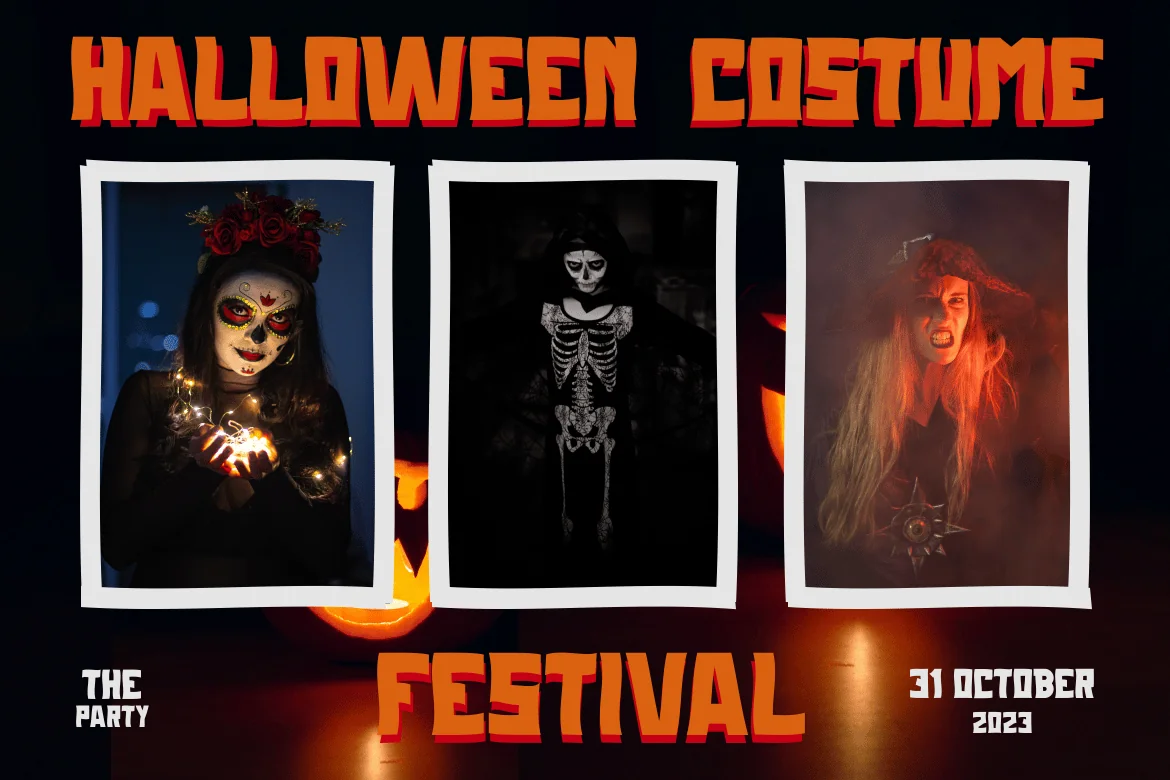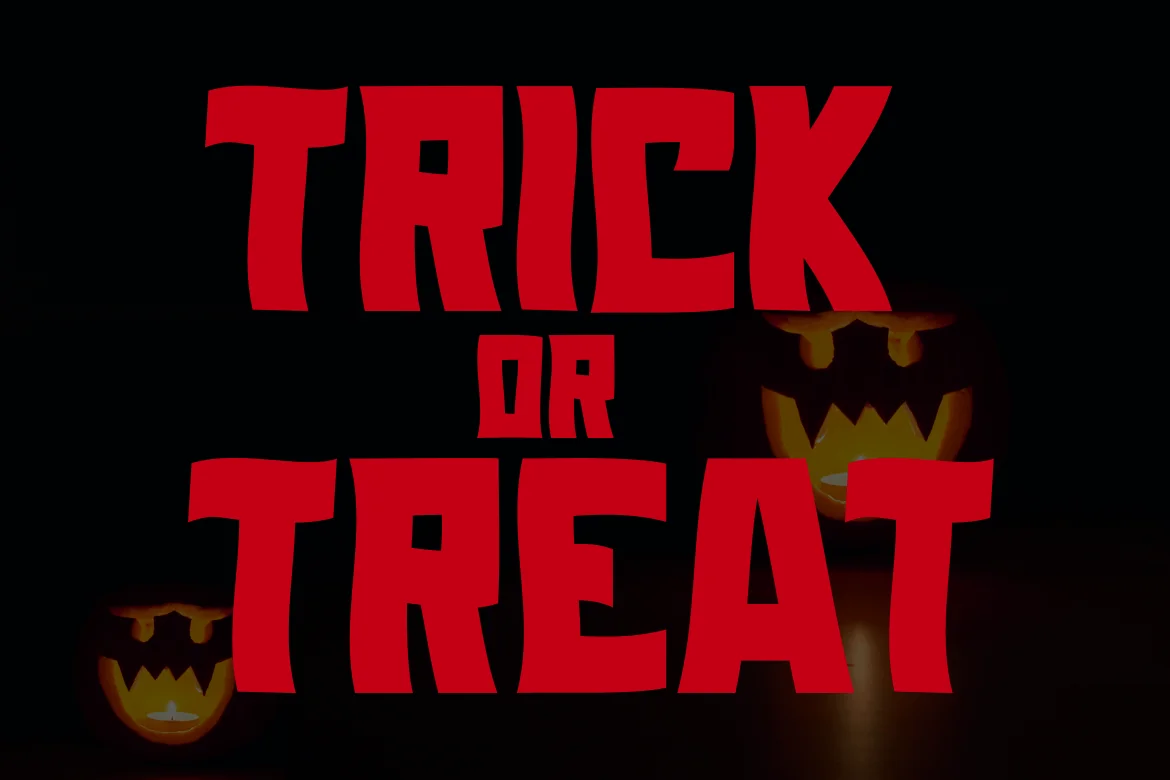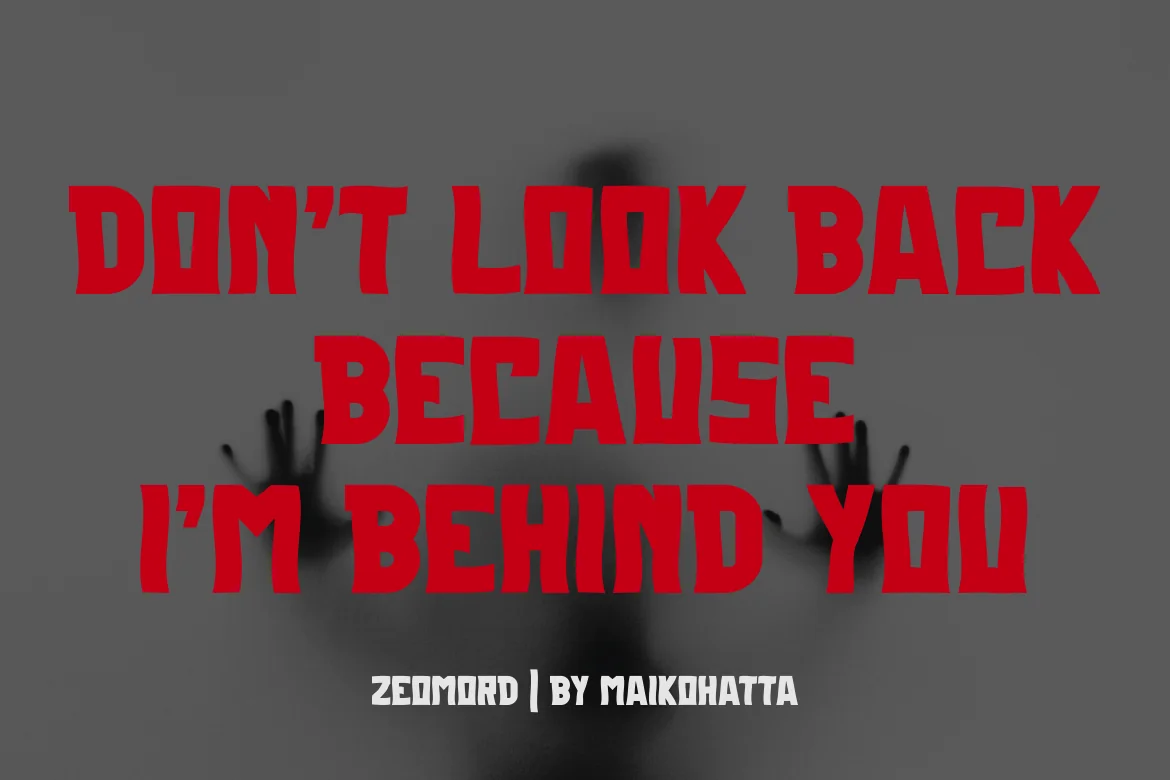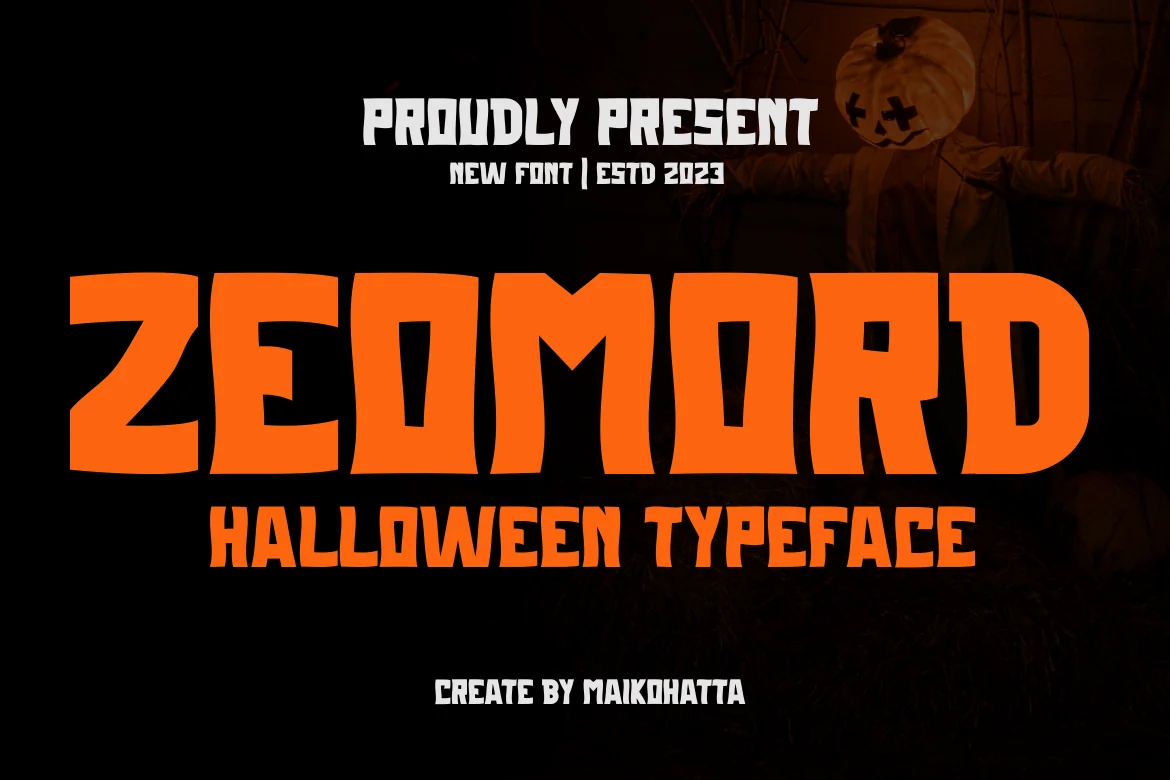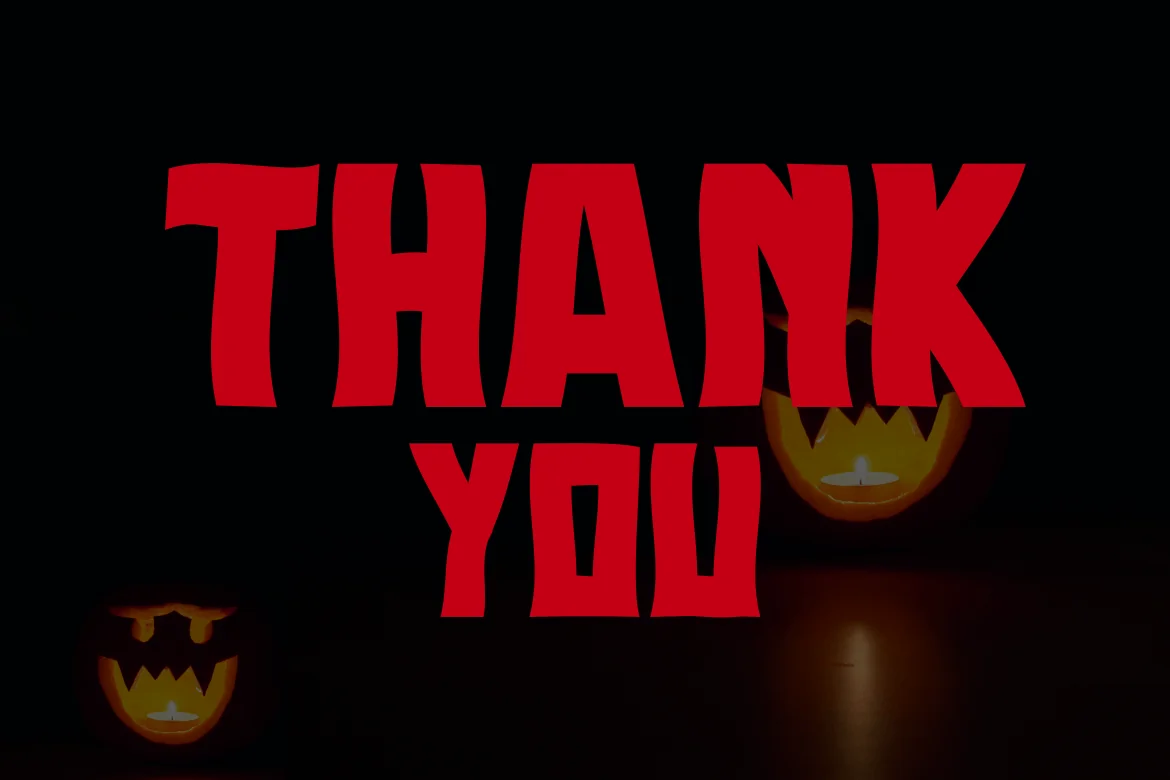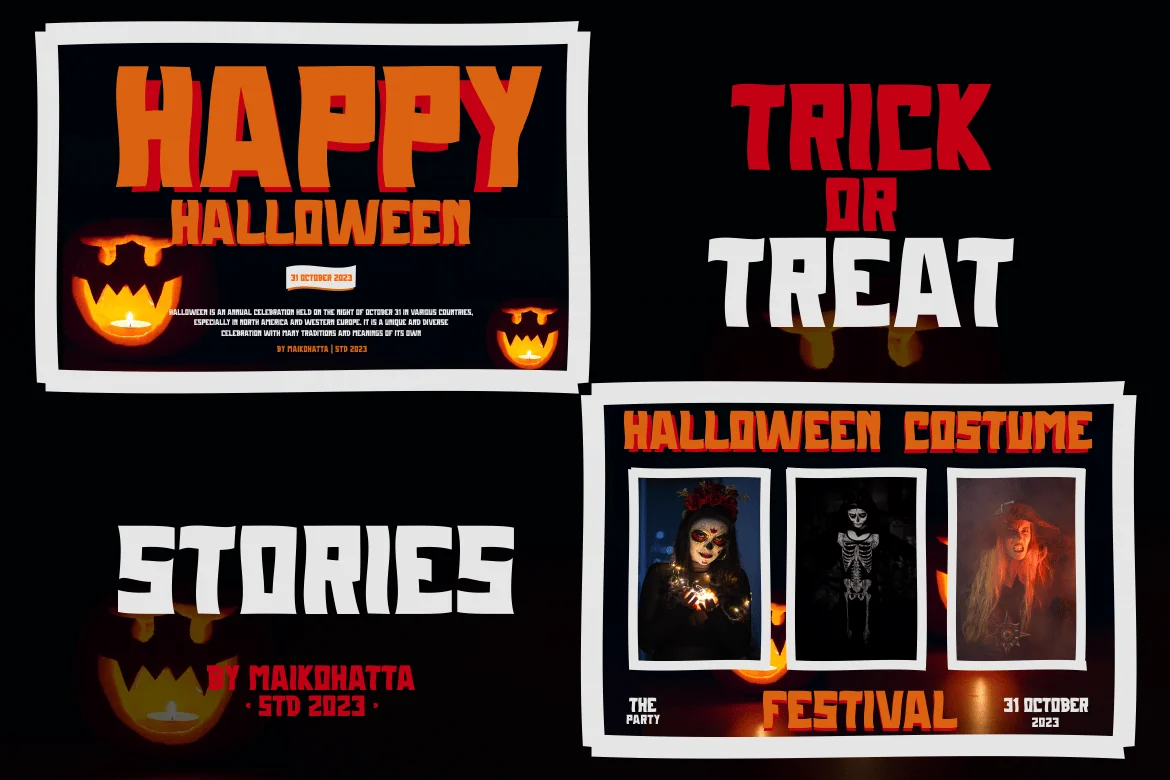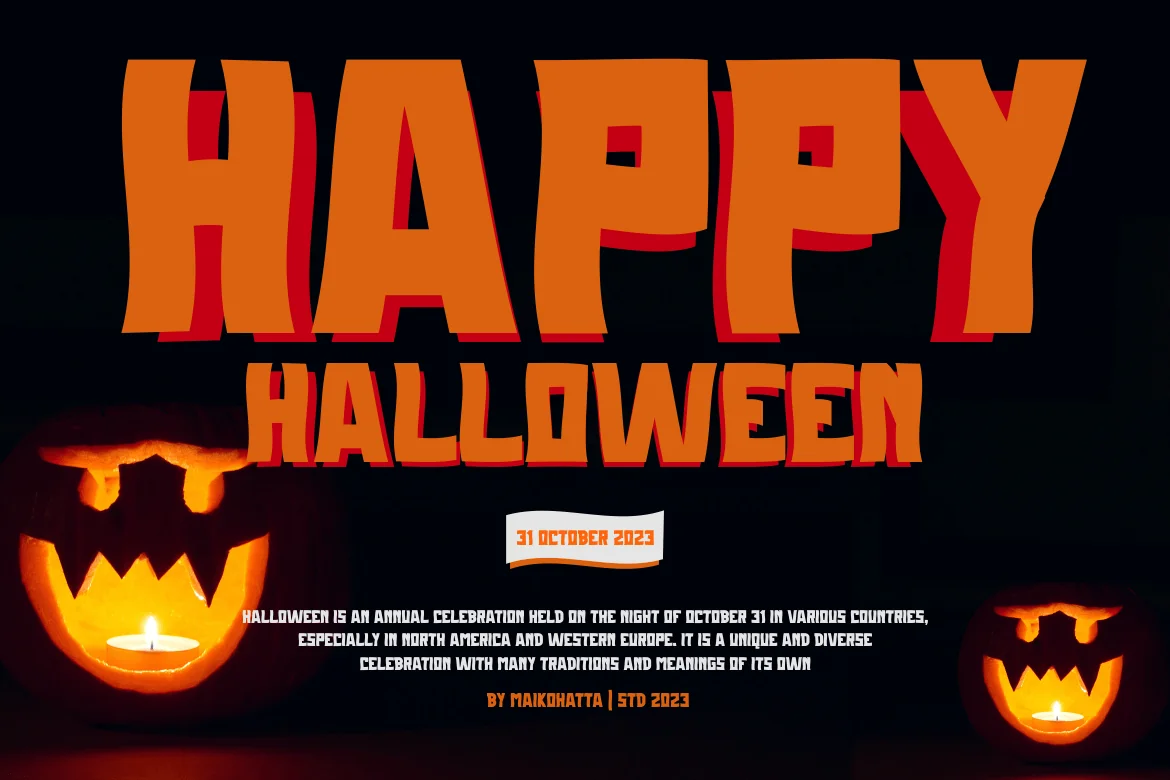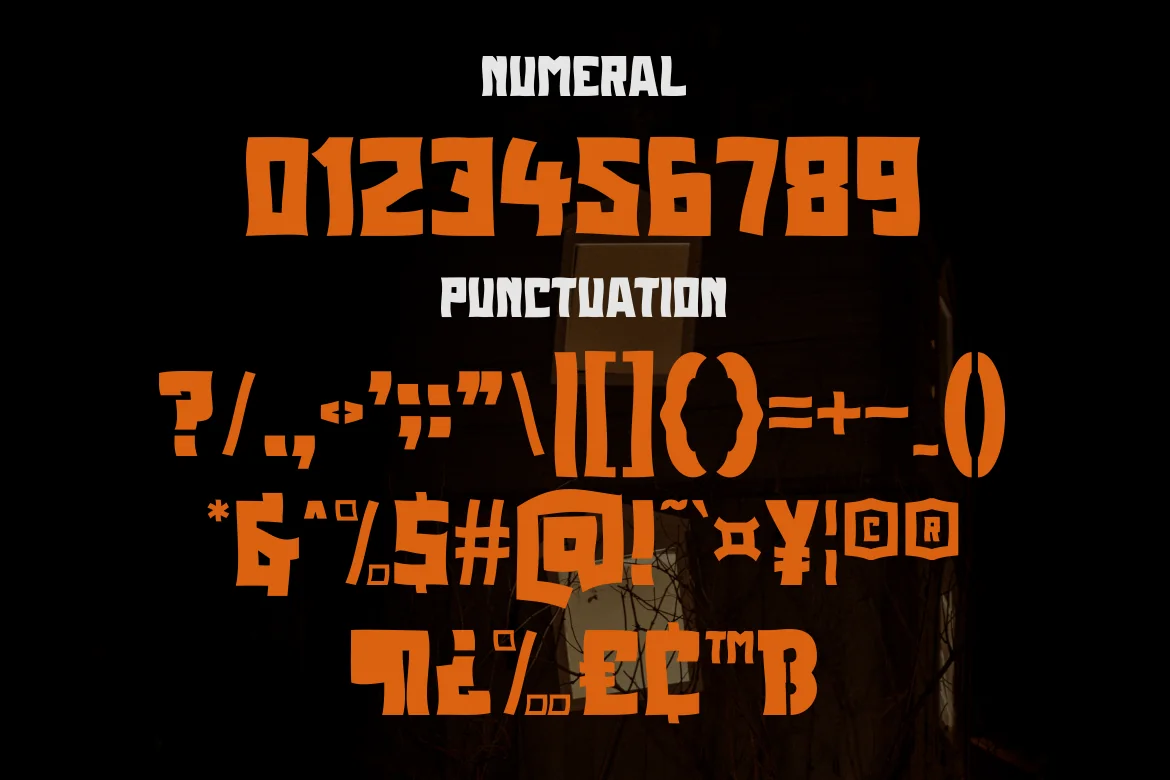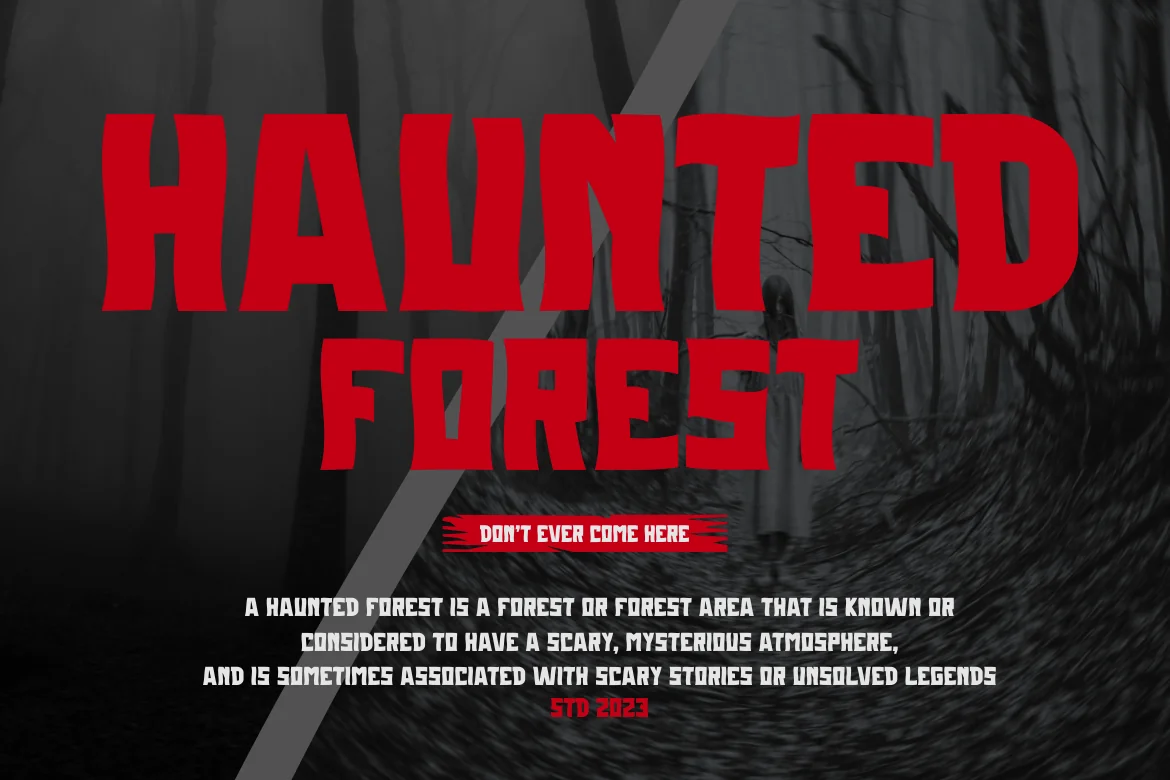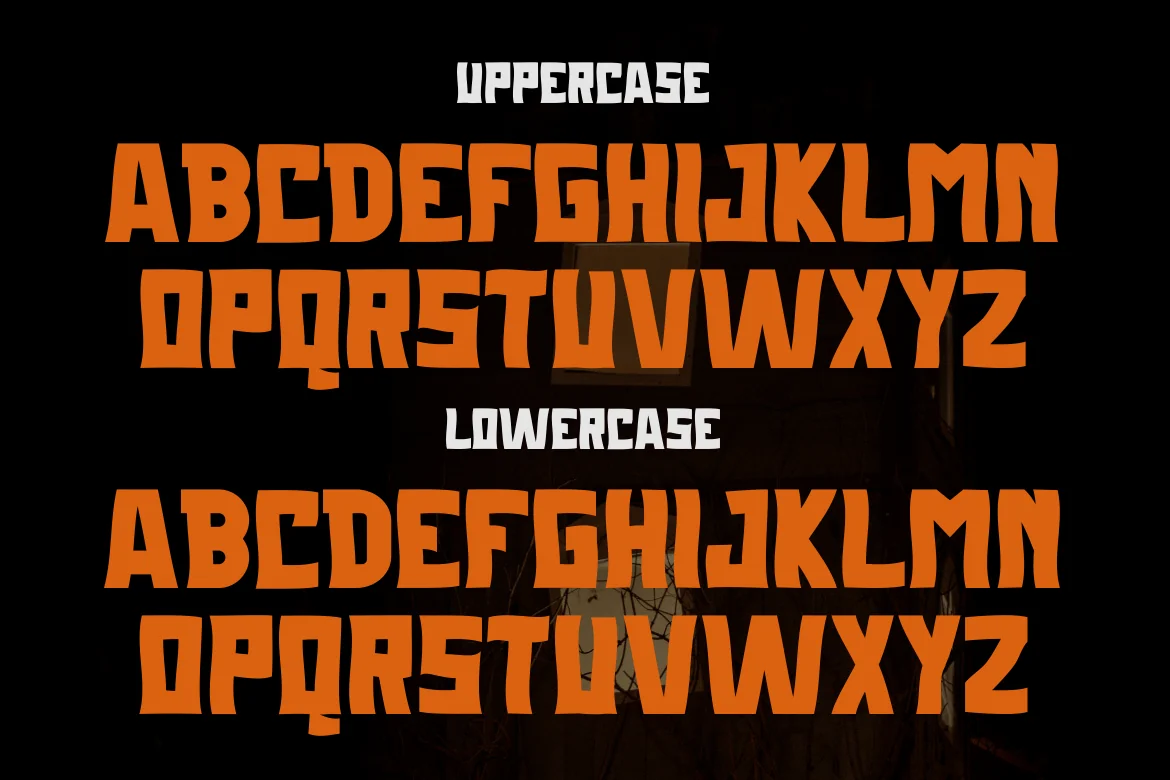
Zeomord – Halloween Typeface
Zeomord is a type of font specifically designed to create a spooky, mysterious atmosphere and depict the spirit of Halloween celebrations. This font can be used in various Halloween-related media, such as party invitations, posters, merchandise designs, greeting cards, warning signs, or within website designs with Halloween themes.